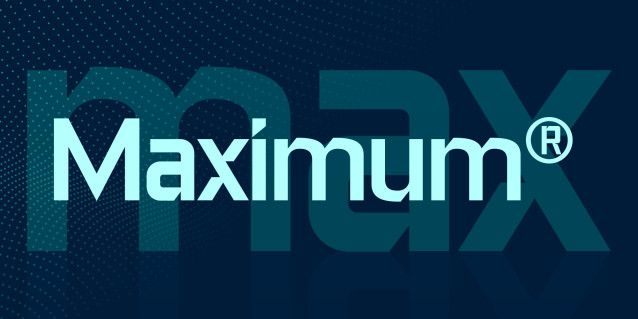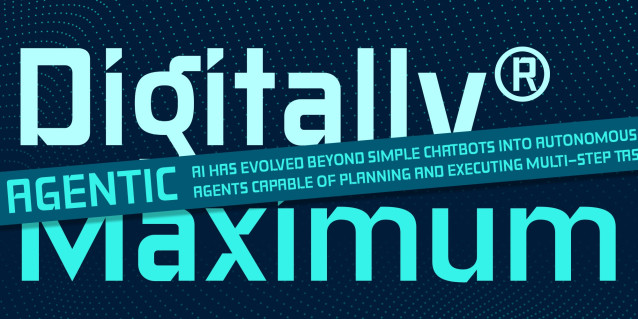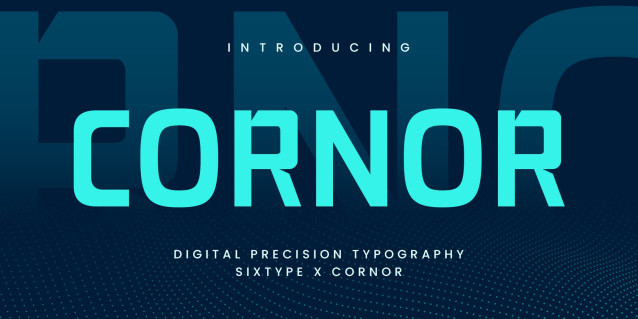
Cornor – Font
Cornor is a modern geometric display typeface made for clarity, balance, and strong visual character. Its clean lines and structured letterforms give it a contemporary aesthetic that fits naturally into modern branding and design projects. The geometric construction keeps the typography clear in display settings.
Designed for visual work that needs a stylish and professional font, Cornor suits logo design, branding identity, posters, packaging, advertising, and digital graphics. It performs well across print and screen, offering a reliable typography solution for designers working on varied creative projects where readability and visual presence both matter.